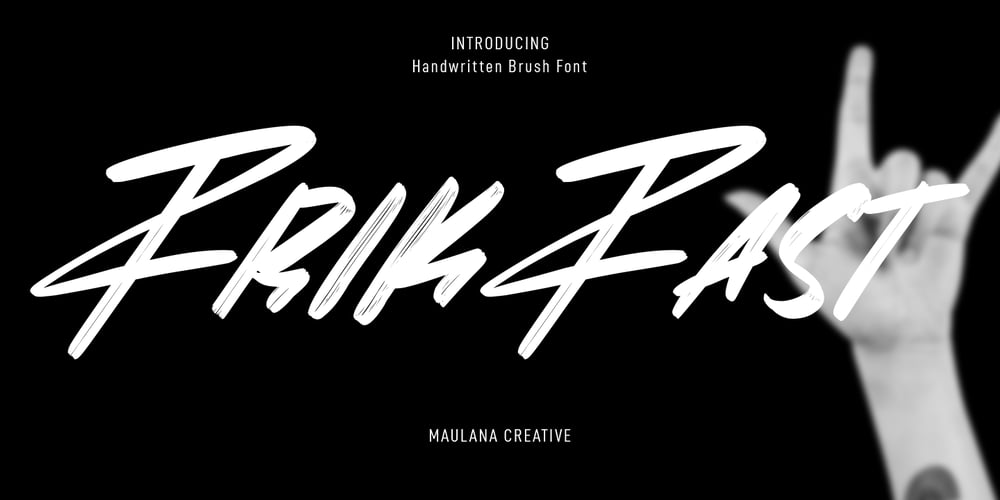
Frikfast Font Family was designed by Gilang Maulana and published by Maulana Creative. Frikfast contains 1 styles and family package options. Frikfast is slanted brush script font. With bold smooth brush stroke, fun character with a bit of ligatures and alternates. To give you an extra creative work. Frikfast font support multilingual more than 100+ language. This font is good for logo design, Social media, Movie Titles, Books Titles, a short text even a long text letter and good for your secondary text font with sans or serif. Make a stunning work with Frikfast font. Cheers, Maulana Creative